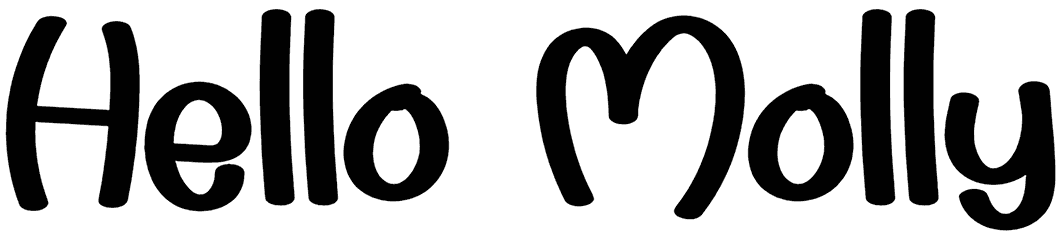
Hello Molly Font
Are you thinking of showing a joyful and cute project and receiving a lot of attention? As a summer font, Hello Molly can cause this mood in your design and make it memorable. This cartoon font with A-Z characters will be a sweet item for your subsequent designs, from school posters to social media posts.